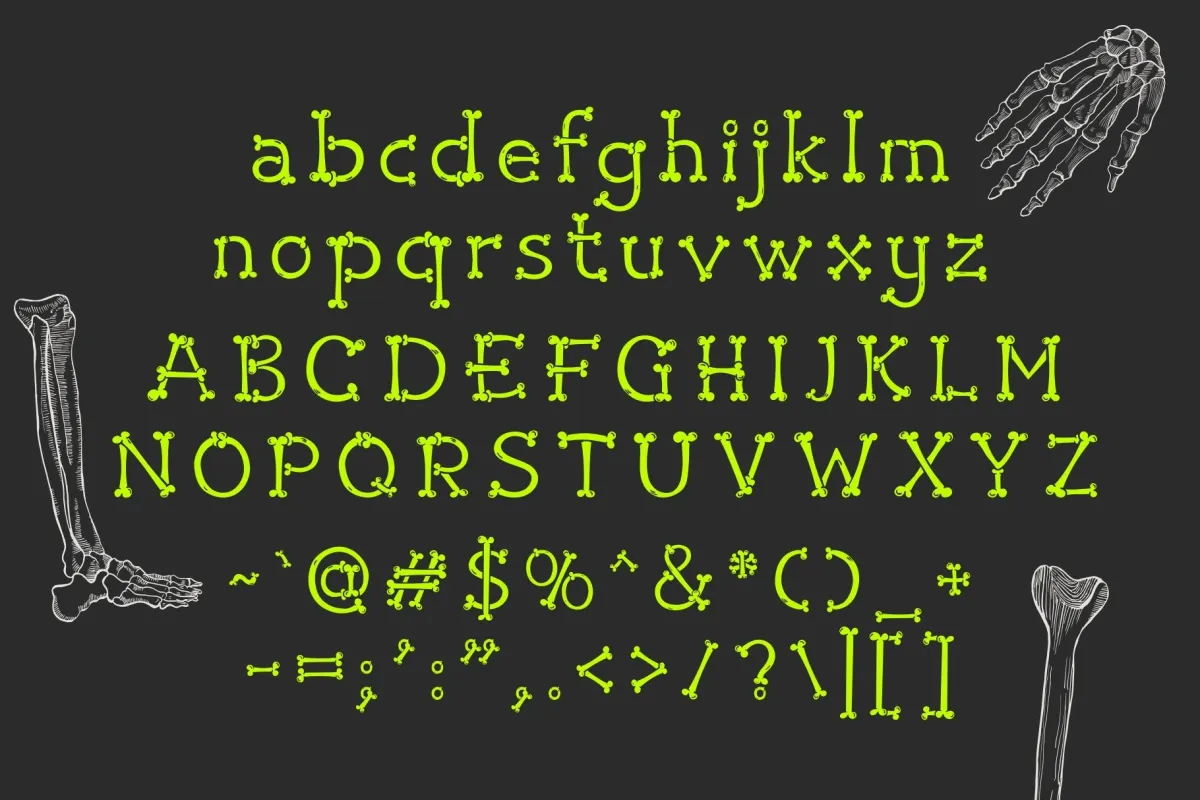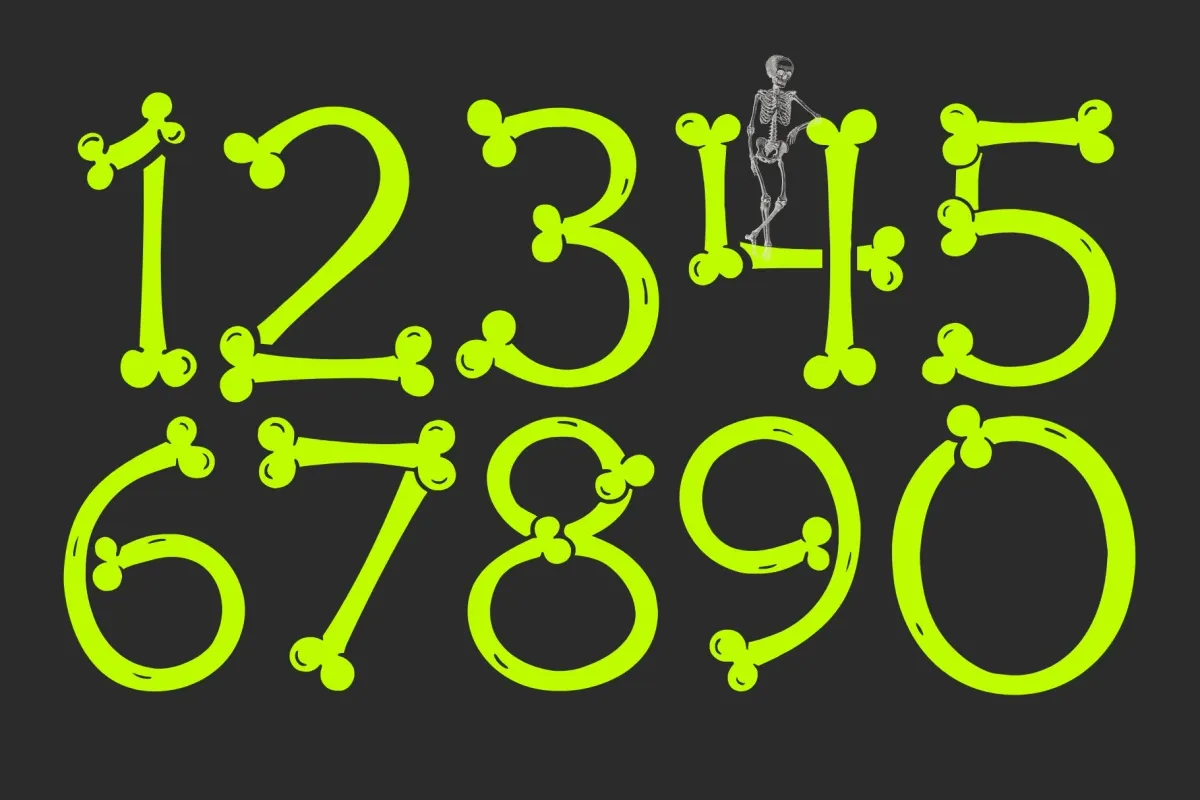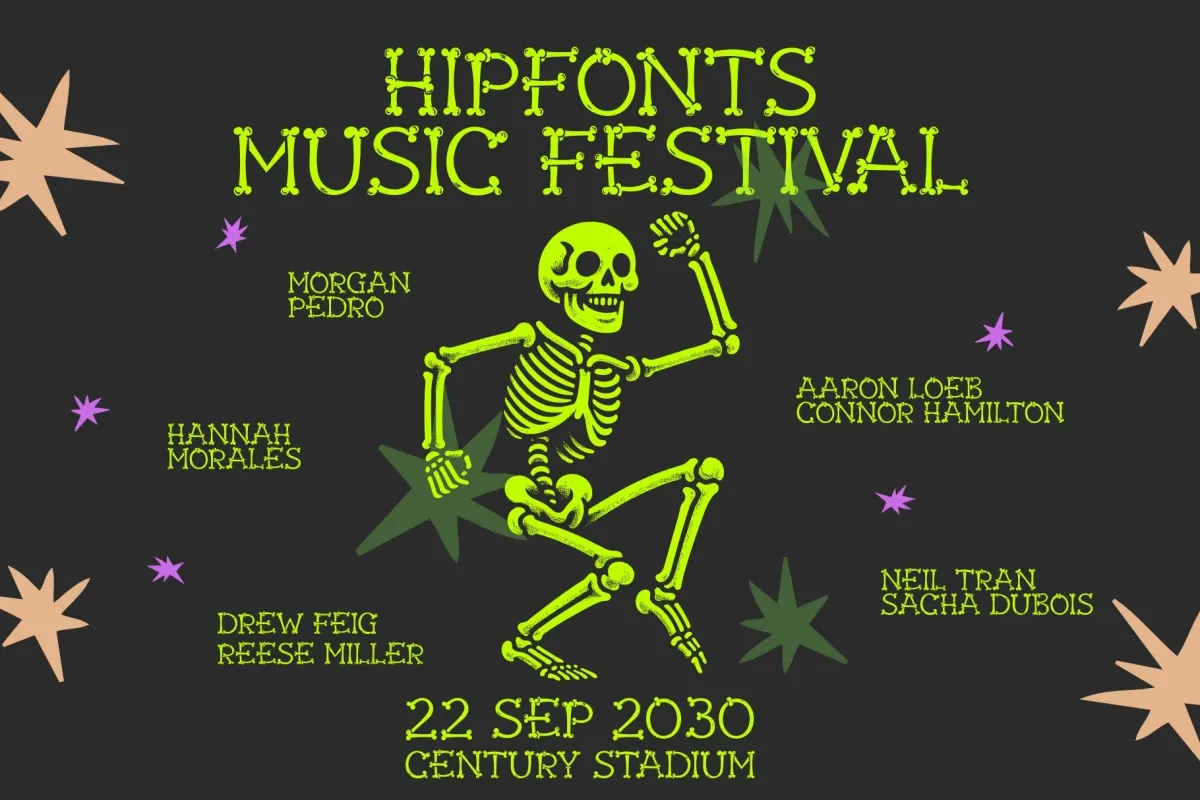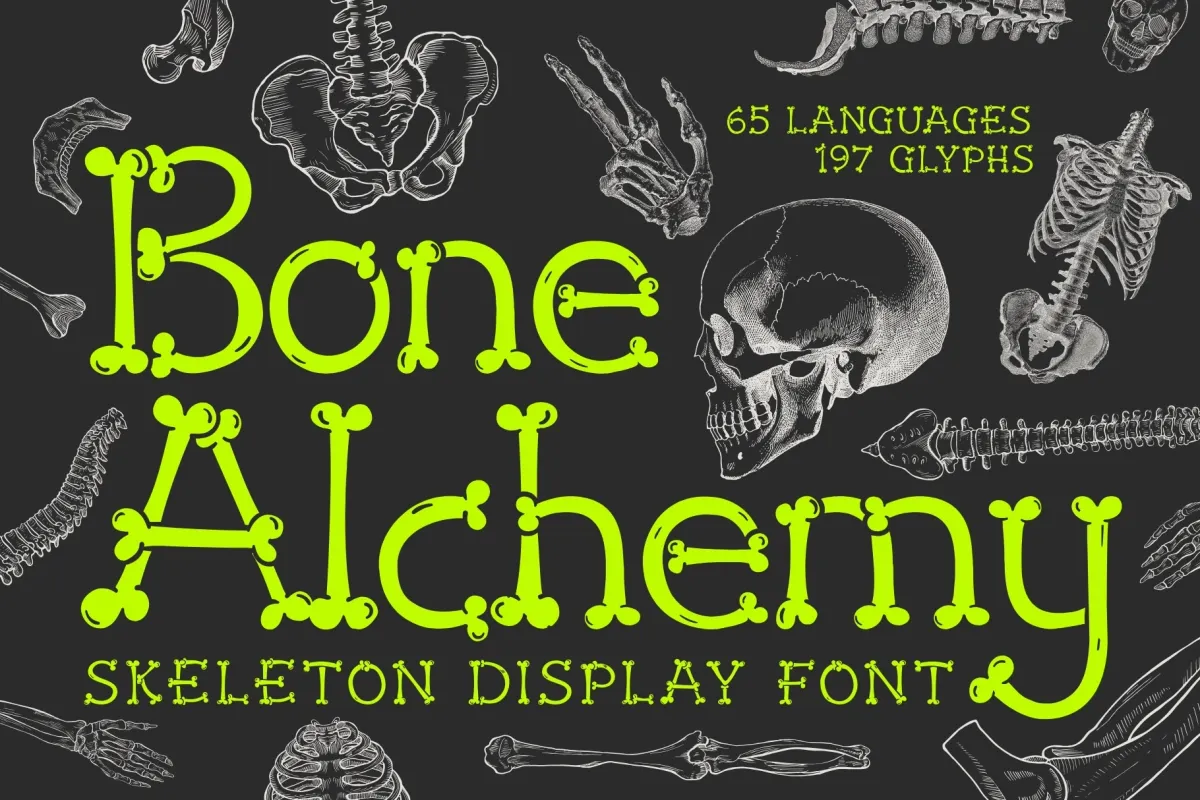
Bone Alchemy - Skeleton Typeface
Bone Alchemy – Skeleton Typeface is a playful yet eerie display font inspired by skulls, bones, and the mysterious charm of dark fantasy aesthetics. Built from chunky bone-like shapes with subtle organic imperfections, the typeface transforms skeletal forms into bold and eye-catching letterforms. Each character looks as if it has been carefully assembled from enchanted bones, creating a distinctive style that blends spooky atmosphere with whimsical personality.
Balancing creepy visuals with a fun, character-driven design, Bone Alchemy is perfect for Halloween graphics, themed posters, dark branding, game titles, and seasonal merchandise. Its unique skeletal construction makes headlines instantly memorable while adding a touch of magical mischief to creative projects.
• Uppercase Characters
• Numerals
• Punctuation & Symbols
• Skeleton / Bone Inspired Letterforms
• Spooky Playful Display Style